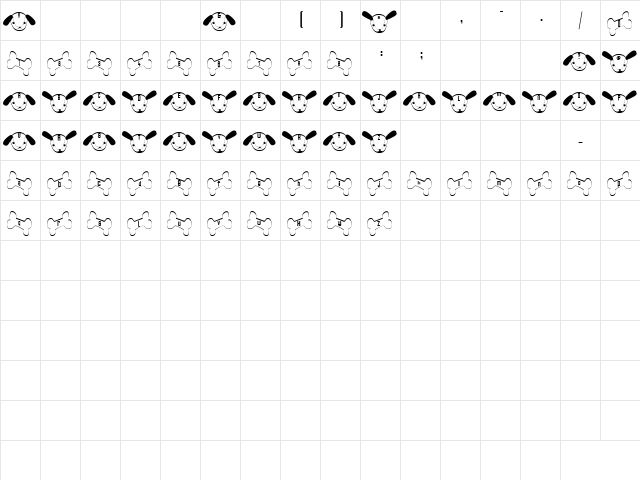
Wan Font Regular
Design Context for Wan Font Typeface
Wan Font is a composed and adaptable typeface that performs quietly and consistently across a wide range of design contexts.